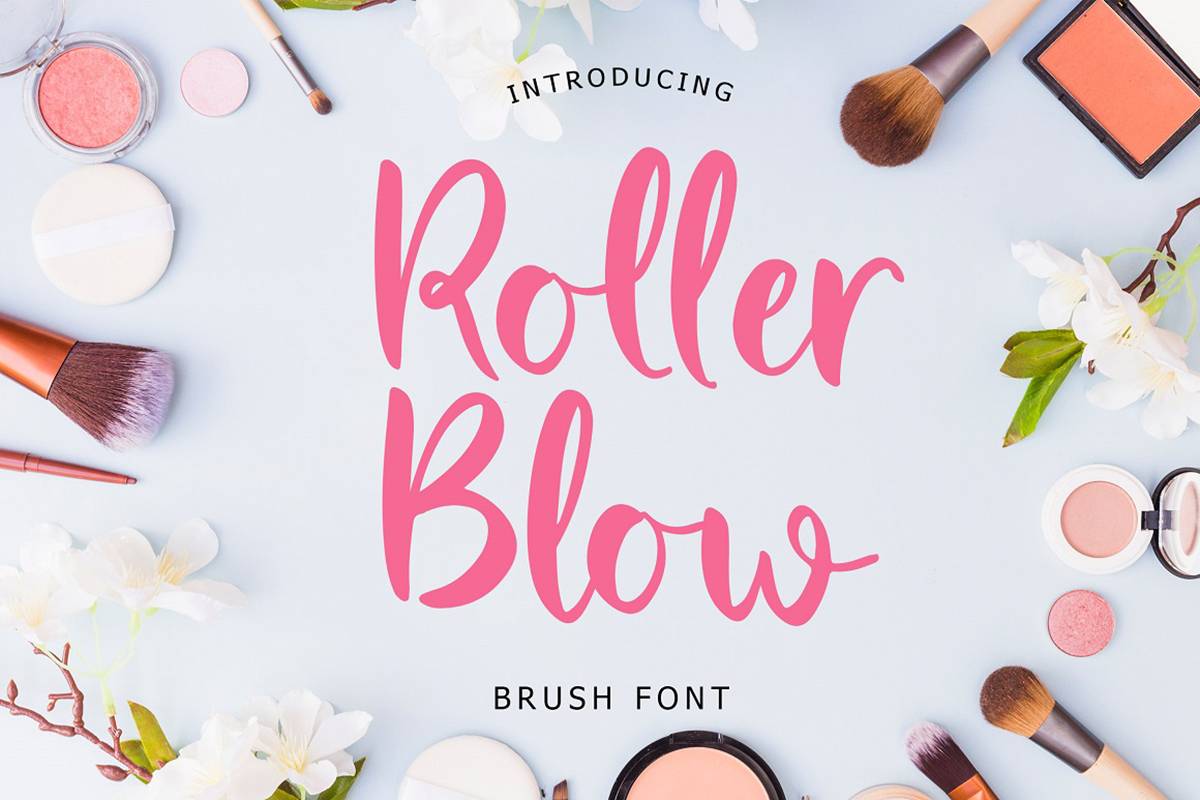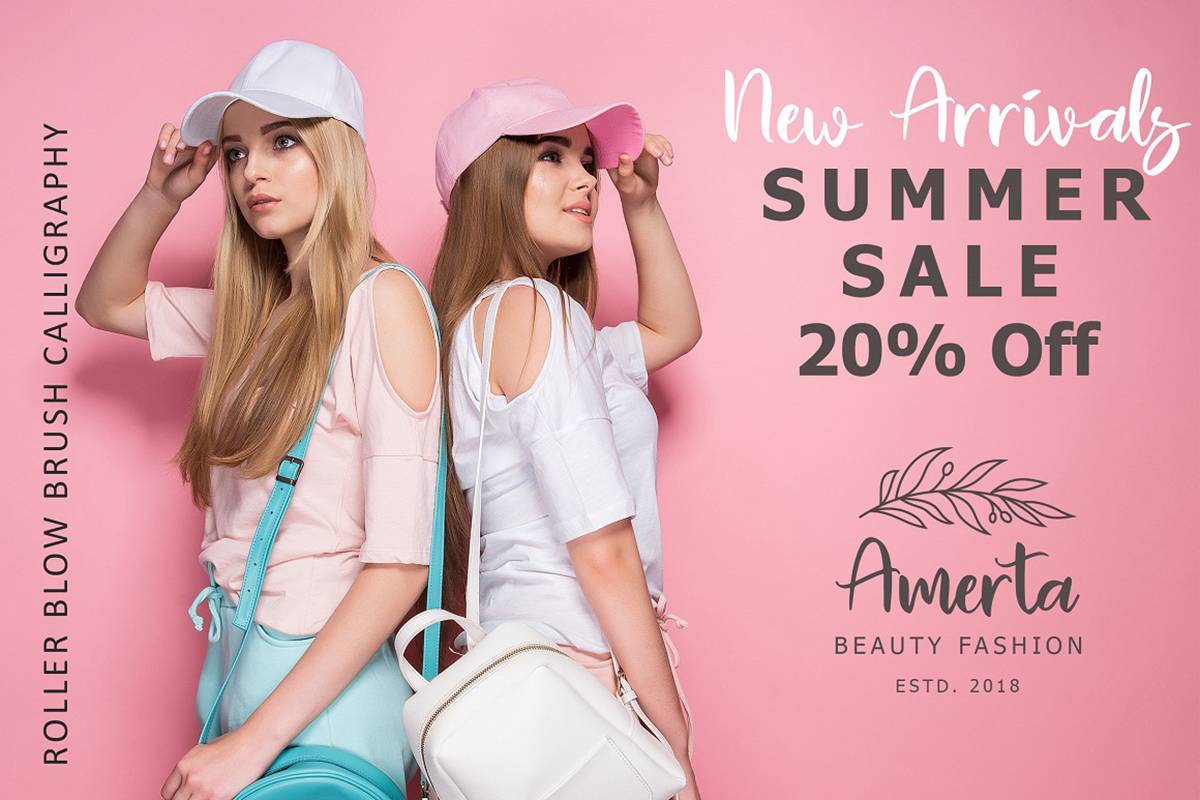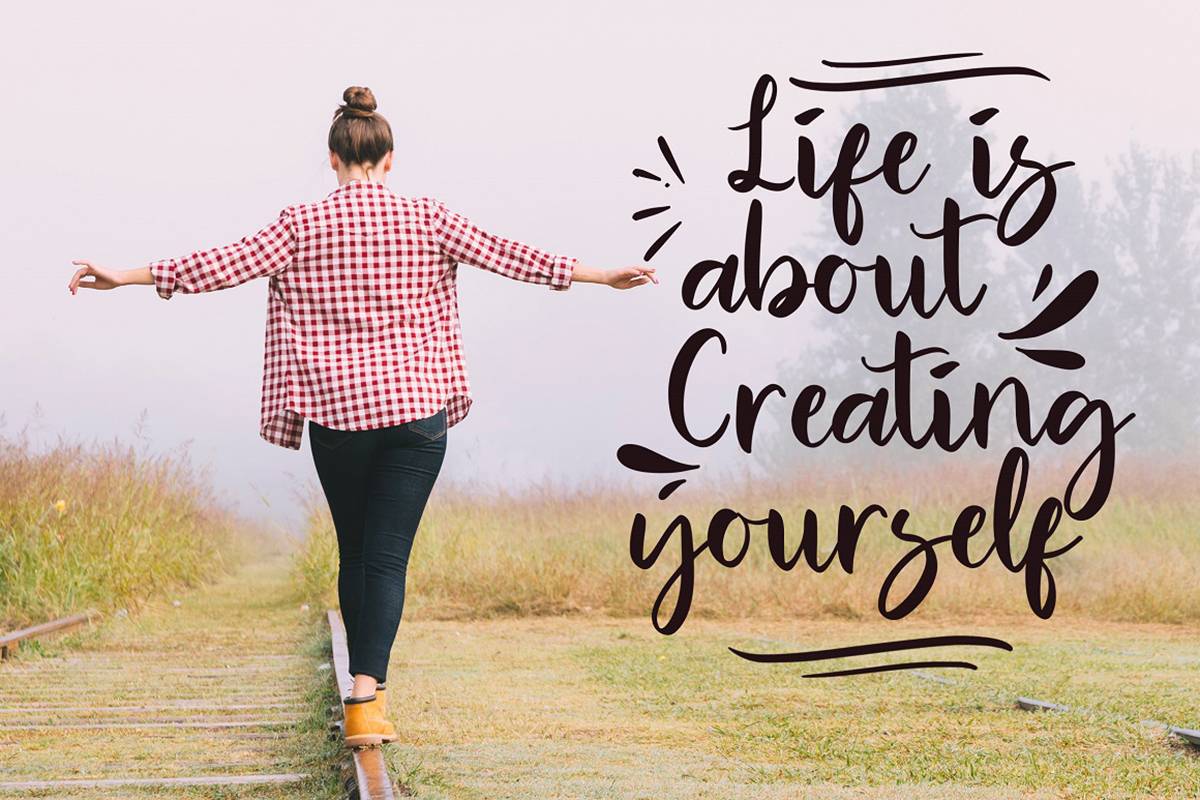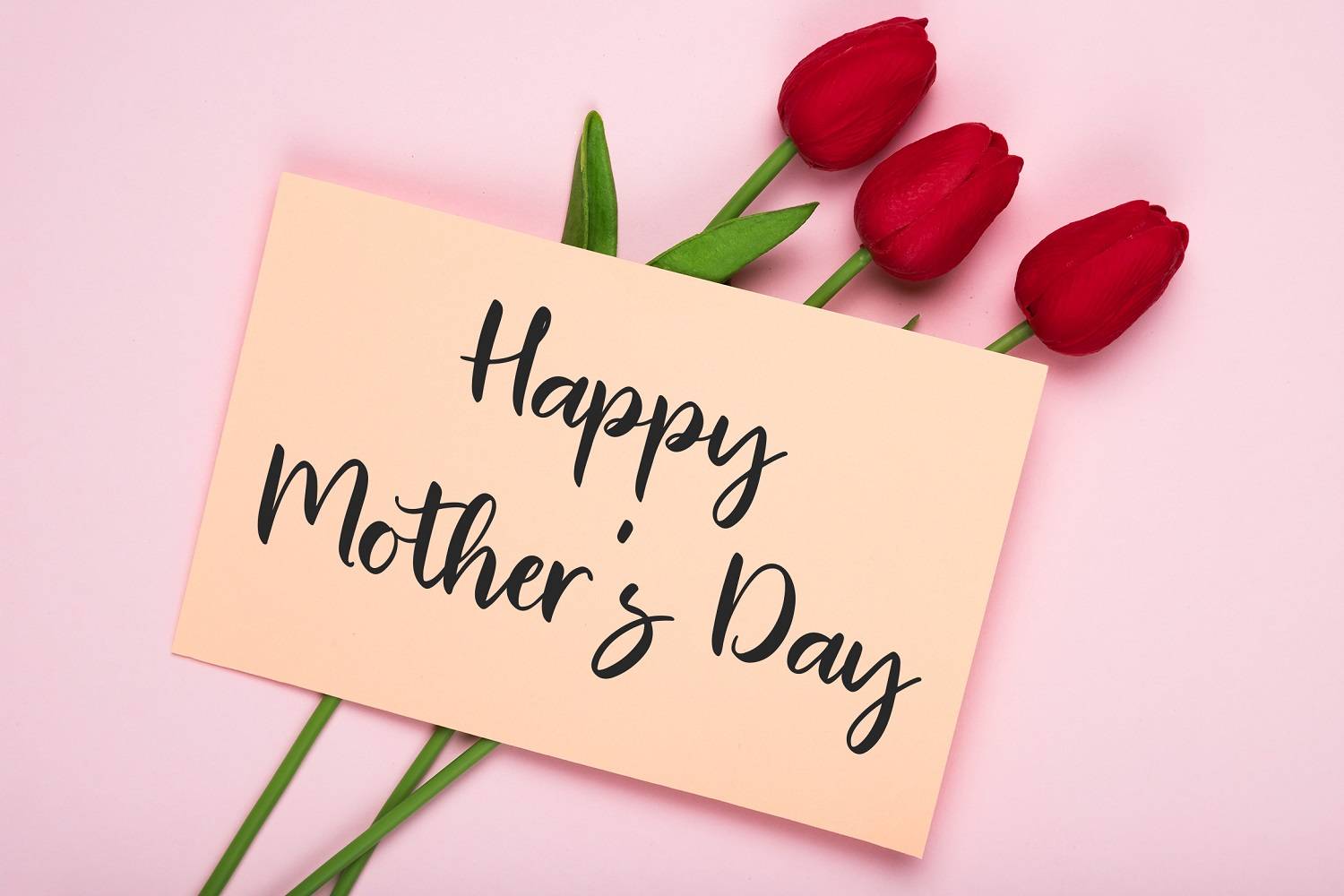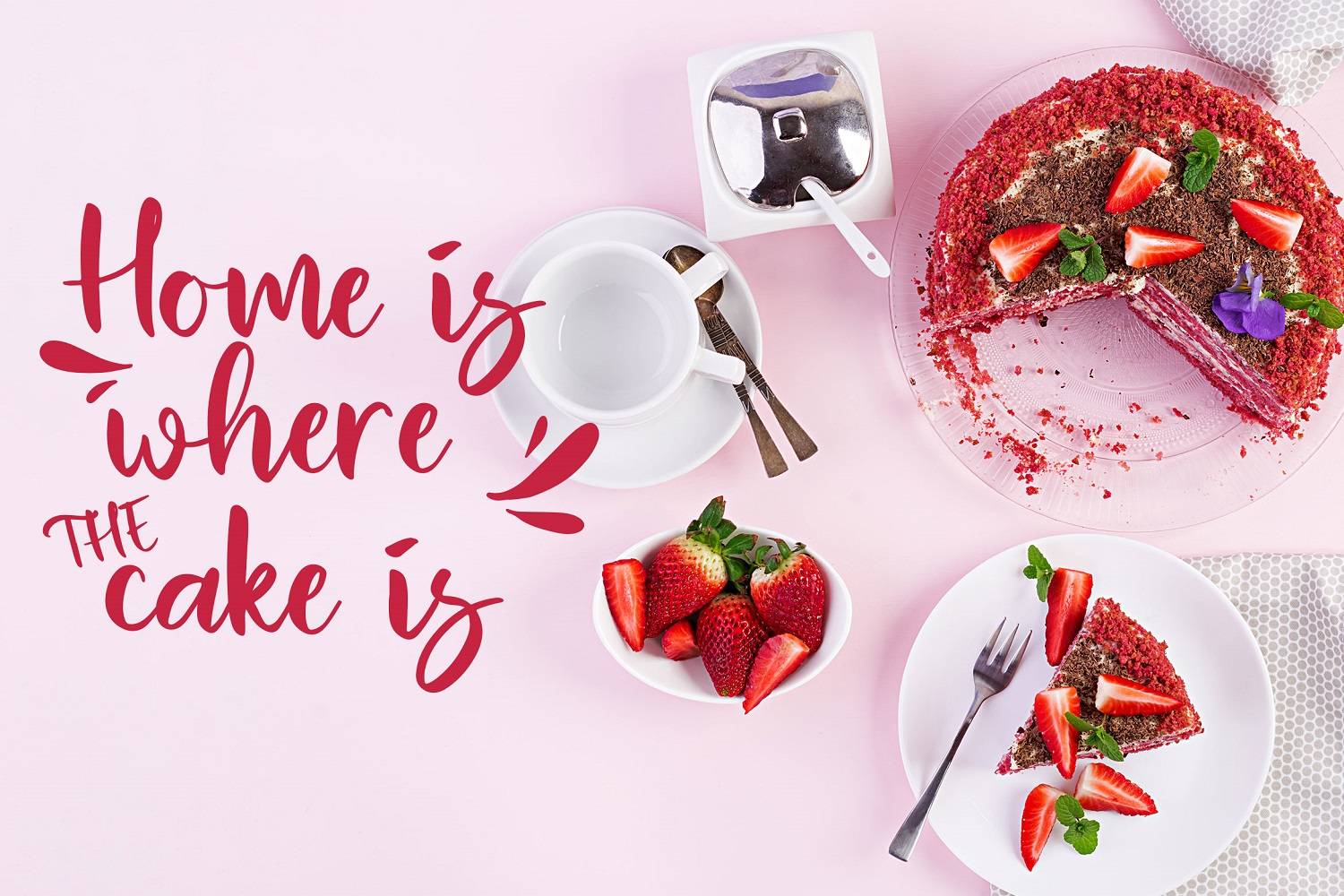
Roller Blow is a playful and casual script font with smooth, flowing strokes and a friendly, handwritten feel. Its medium weight and natural rhythm make it perfect for adding a personal touch to invitations, branding, and creative projects that want to convey warmth and approachability. This font works well in headlines and logos where a lively, informal style is desired.
Roller Blow Font
About Roller Blow Font
| Font family | Roller Blow Font |
| Release date | 2021-01-11 |
| Designer | Ana Natalia |